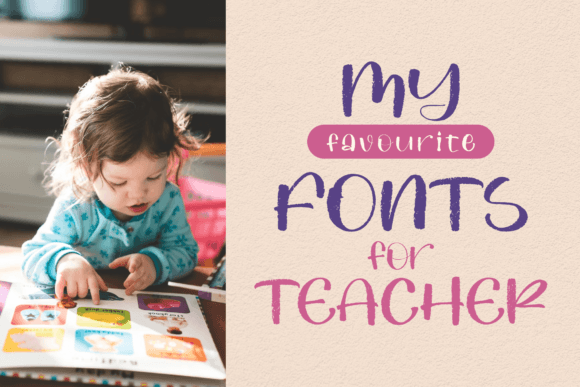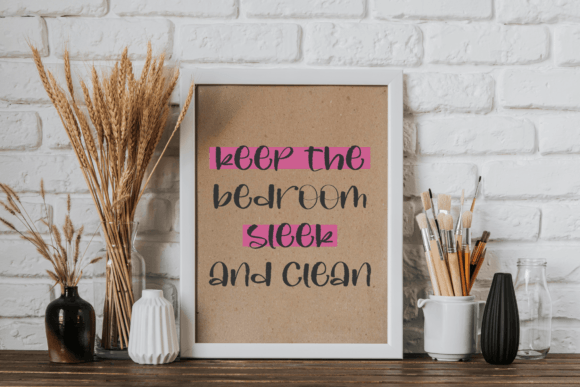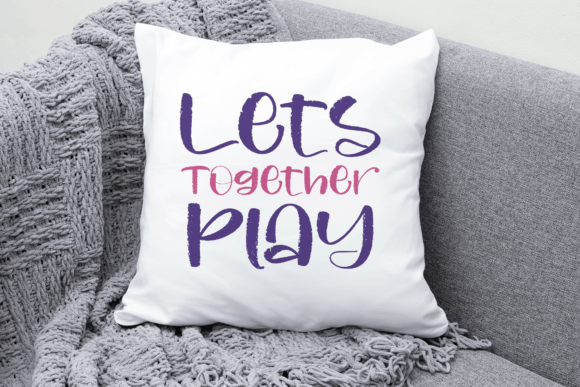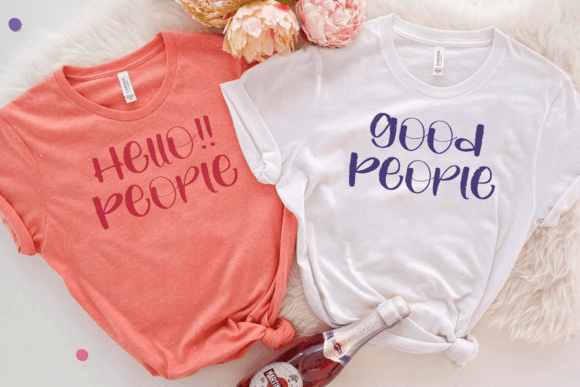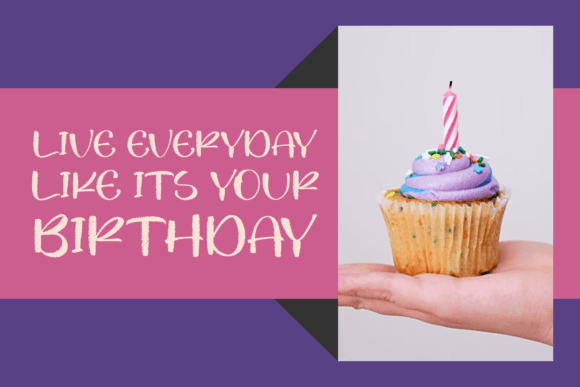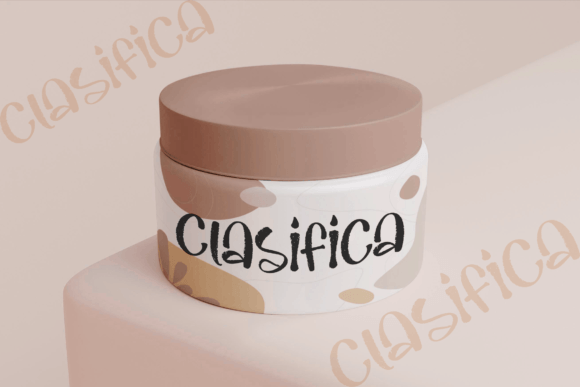
Introduction to Pacifica Font
Pacifica – Handwritten Brush Font suitable for any projects such as logos, branding projects, homeware designs, product packaging, mugs, quotes, posters, shopping bags, t-shirts, book covers, name cards, invitation cards, greeting cards, labels, photography, watermark, special events, and all your other lovely projects that need a beautiful script taste.
Key Features of Pacifica Font
Why Choose Pacifica Font?
Pacifica Font offers exceptional quality and versatility, making it a valuable addition to your design toolkit. Whether you’re creating for personal projects or commercial use, Pacifica Font delivers professional results.